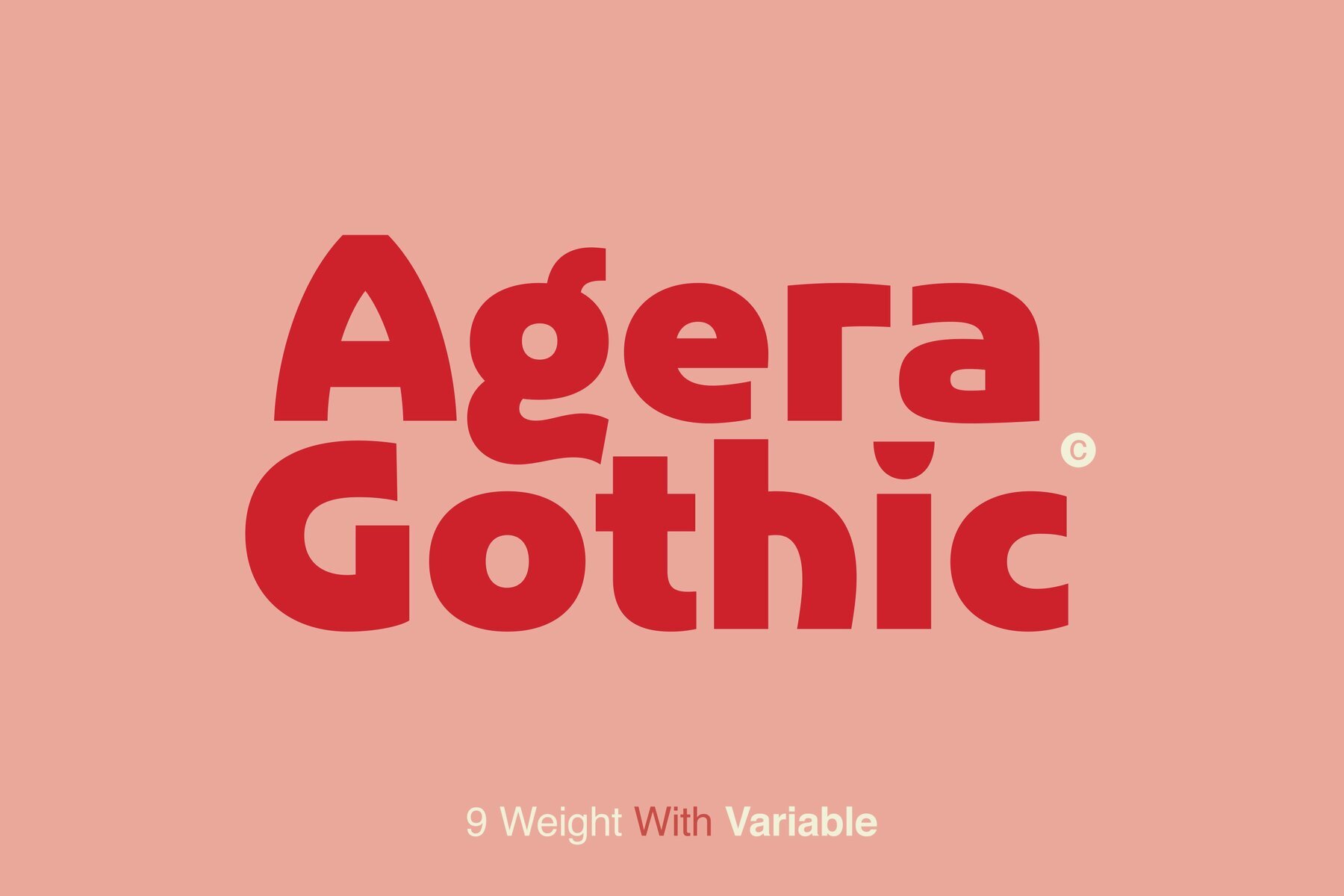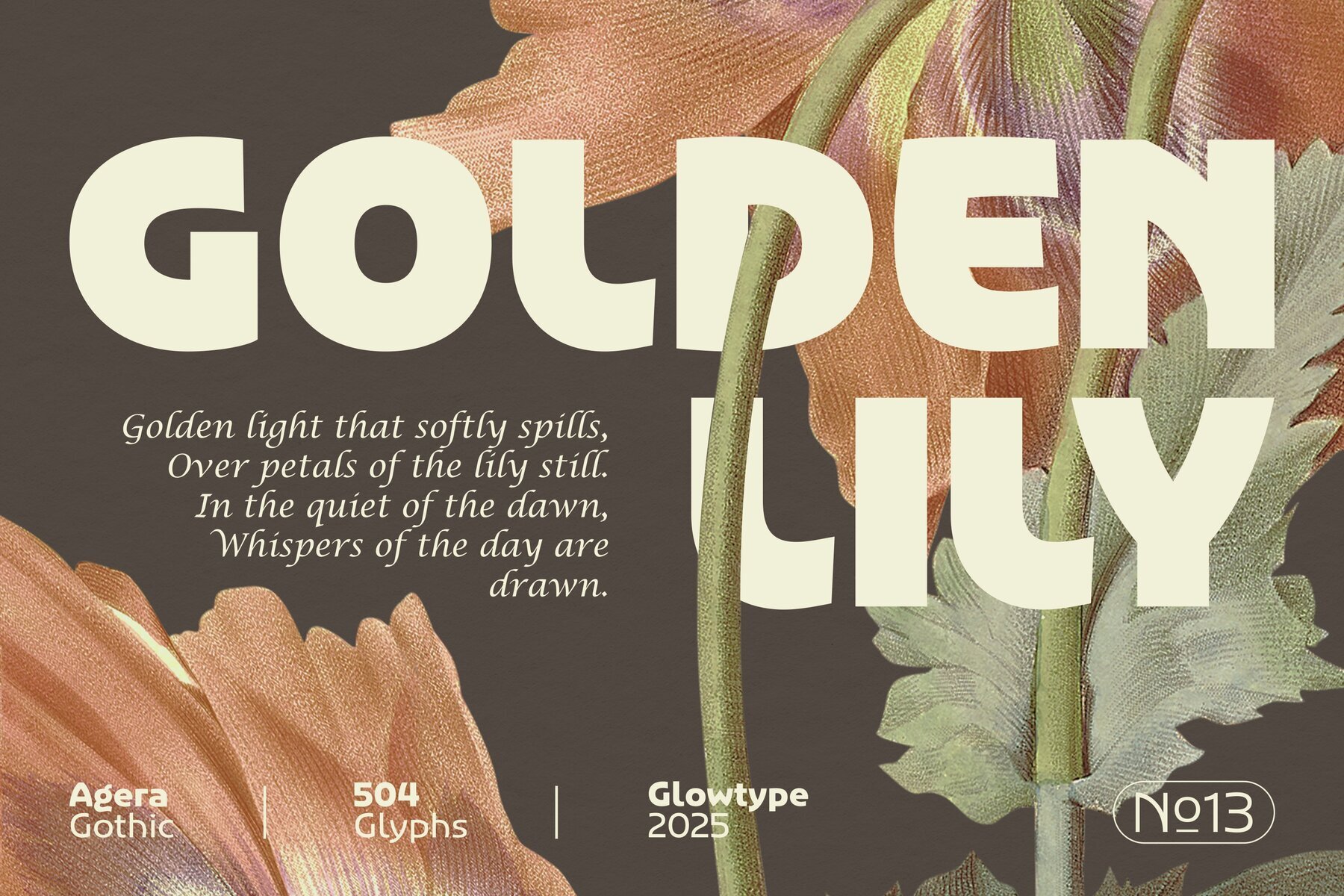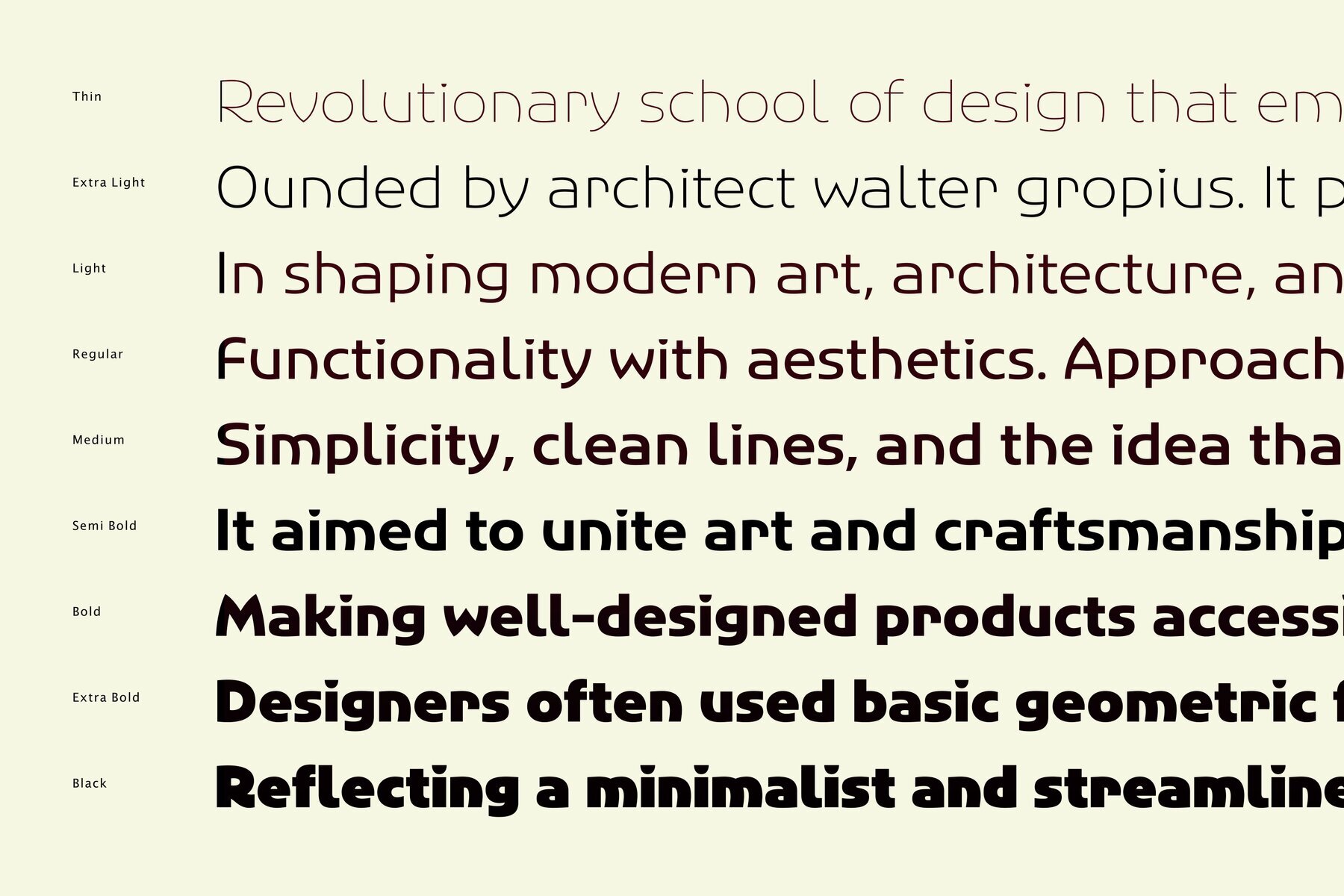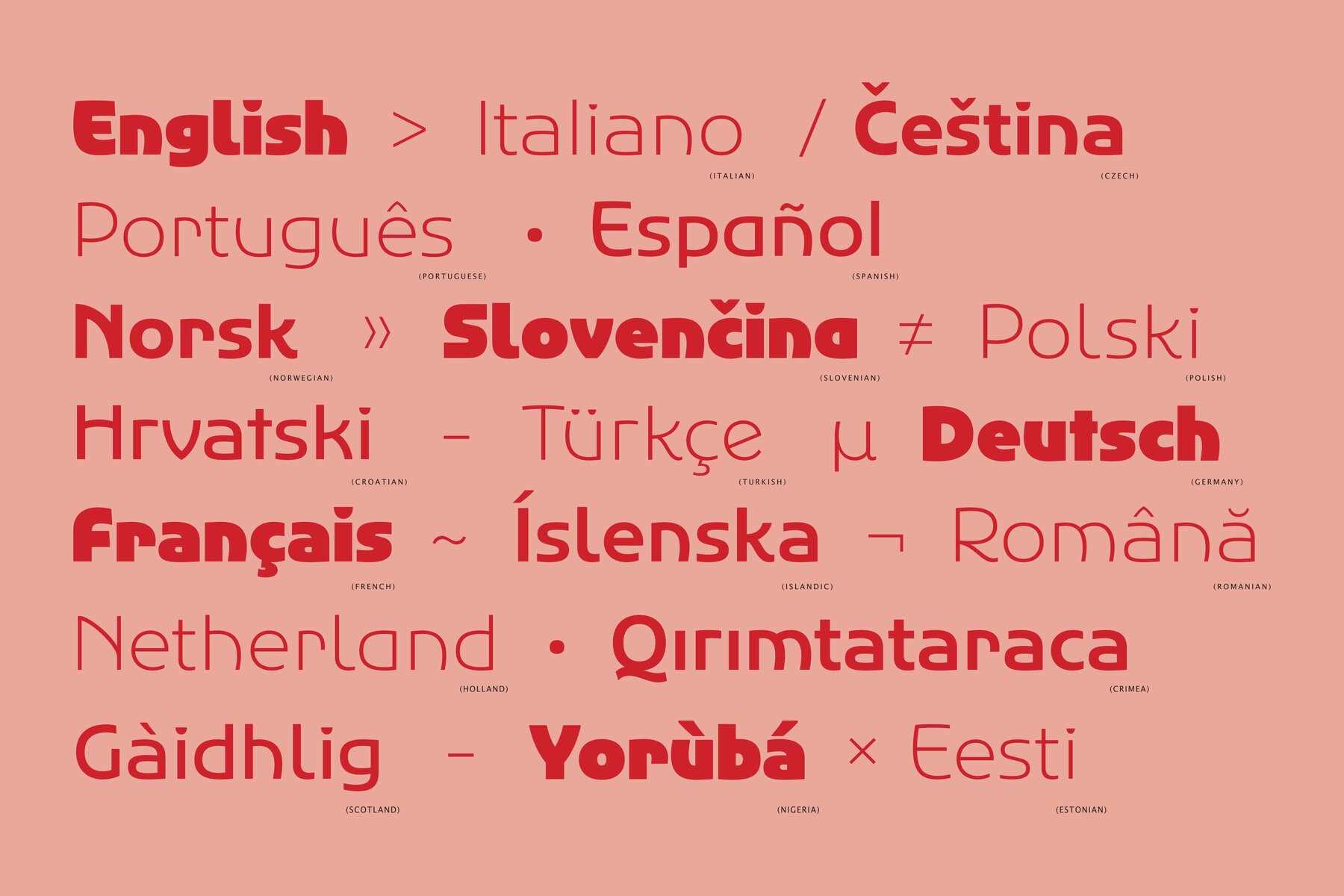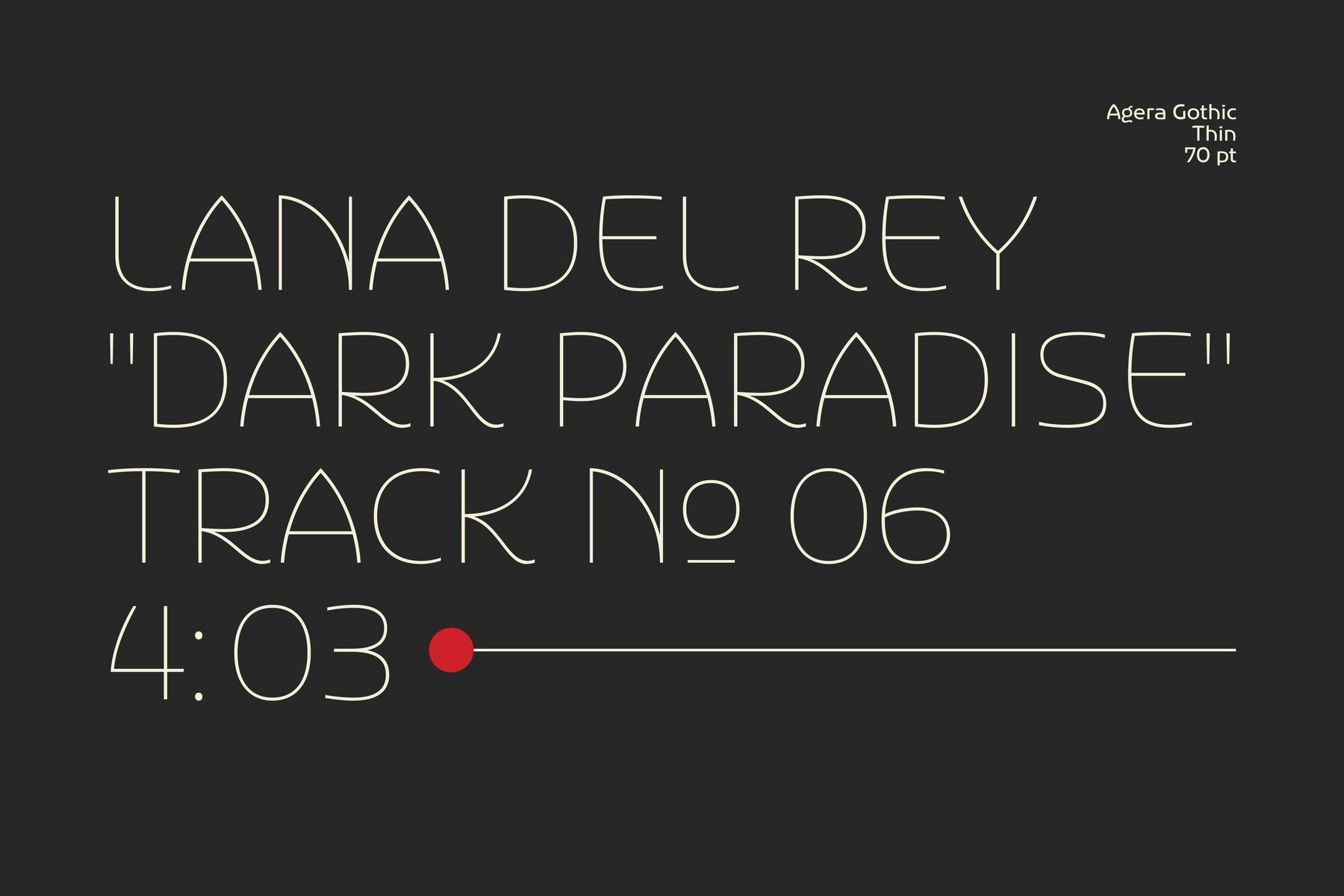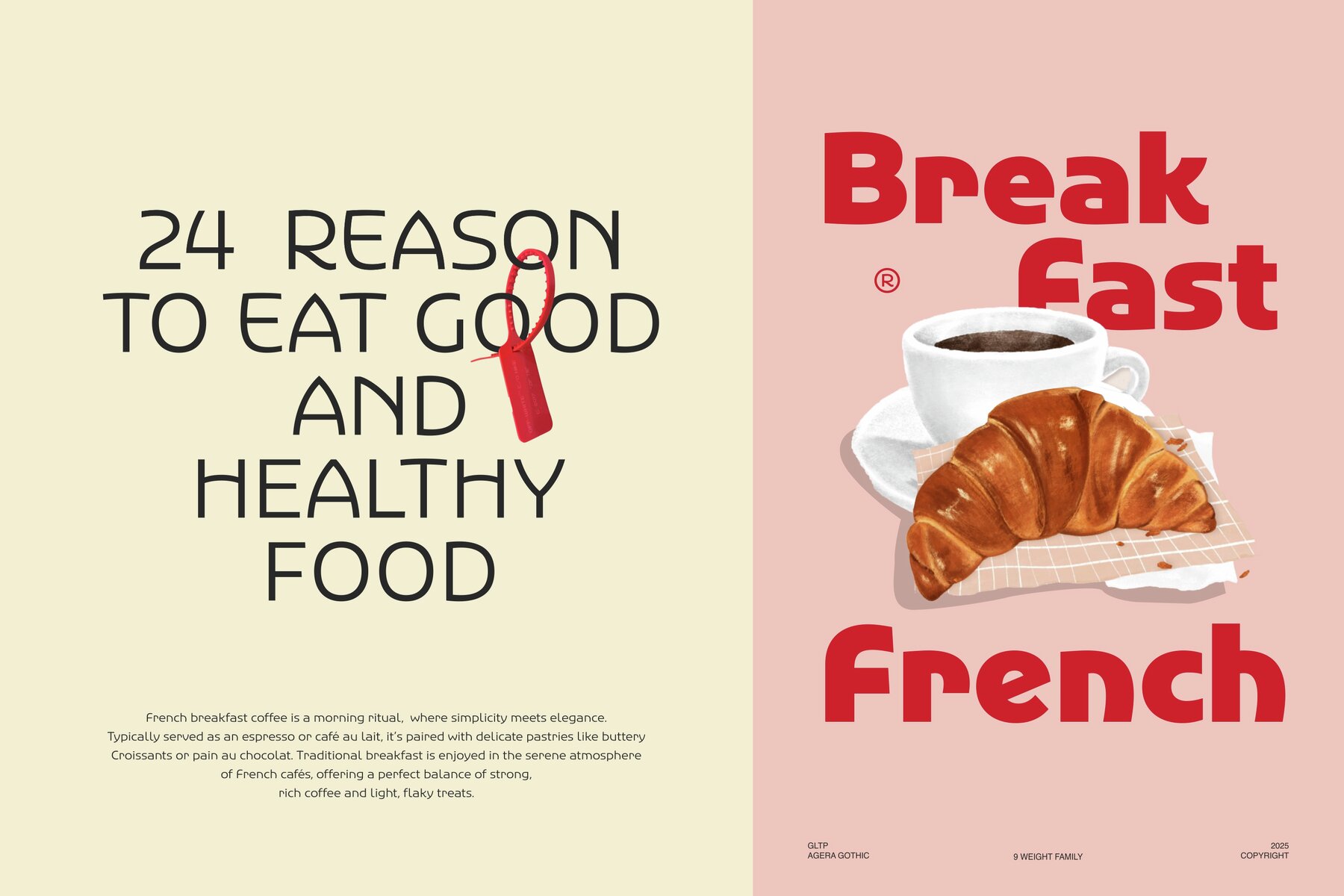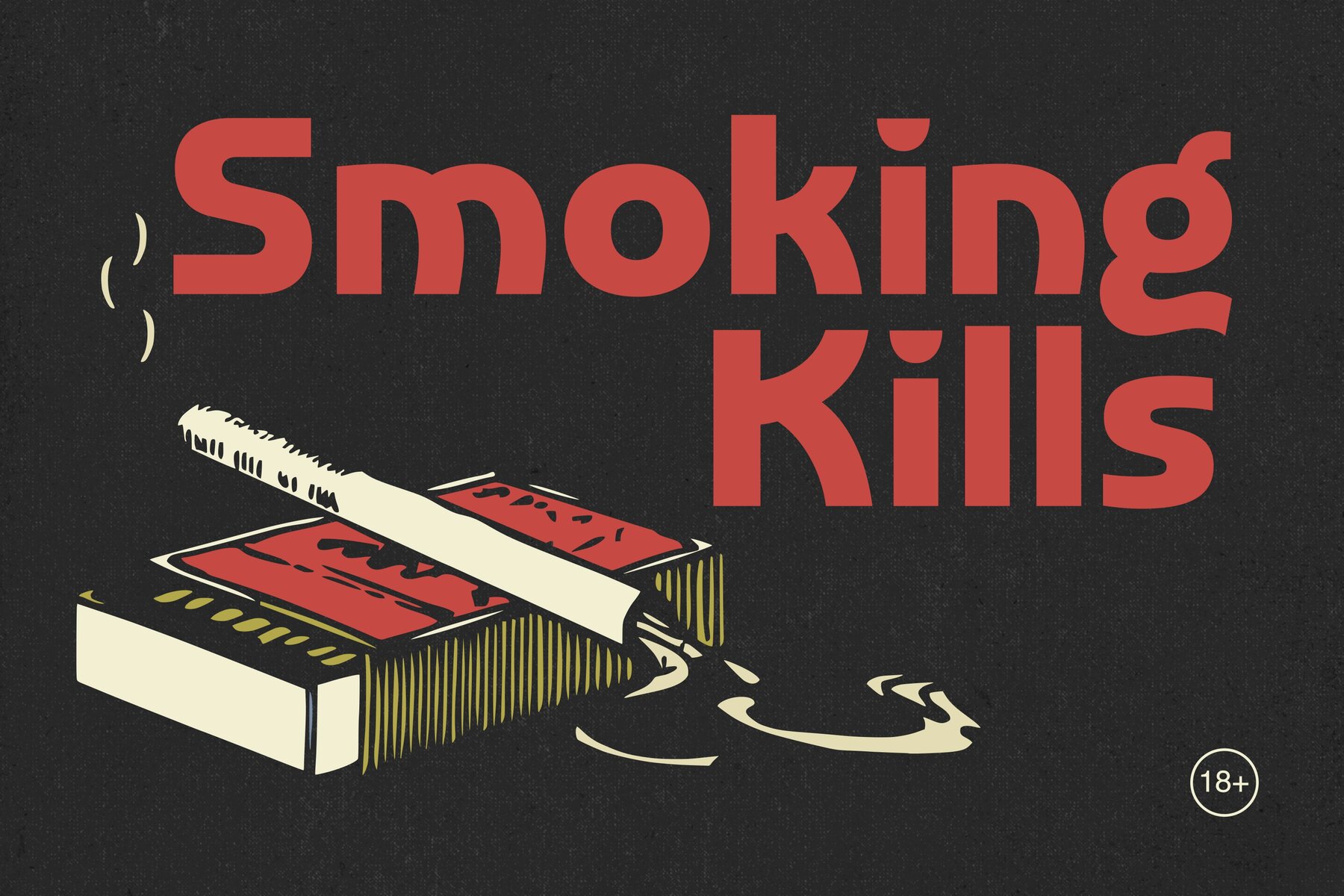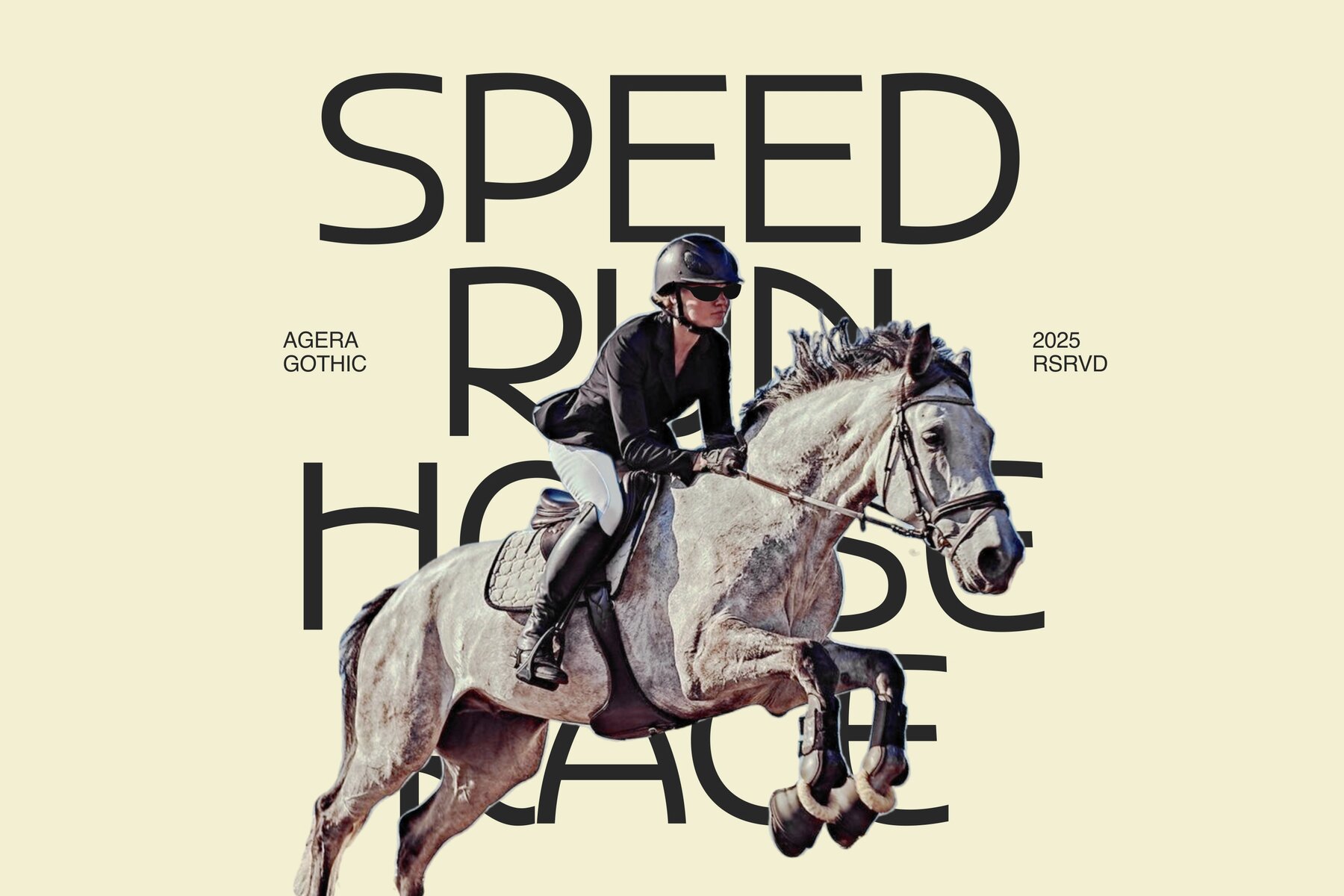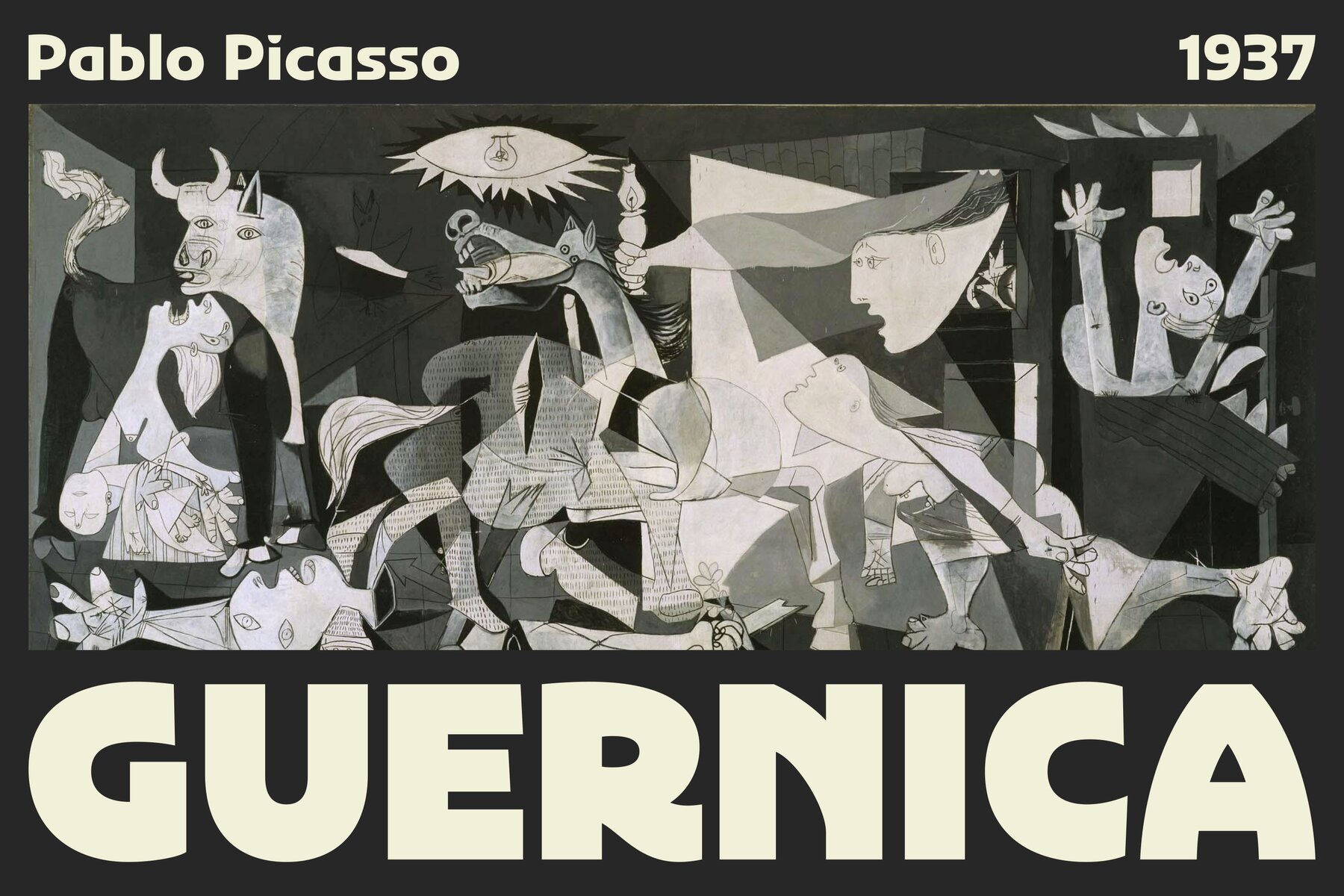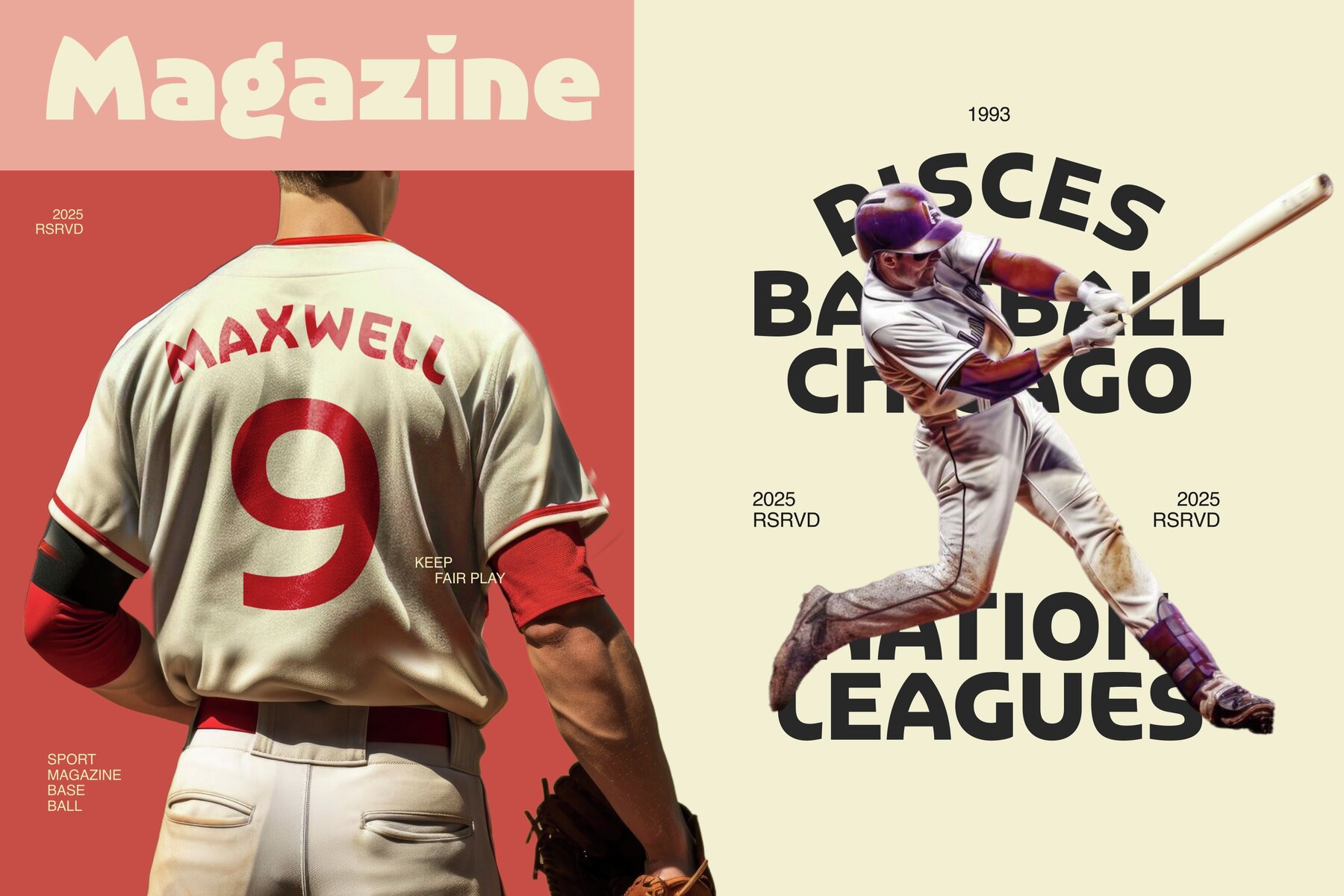
Agera Gothic Font
Agera Gothic embodies a sophisticated blend of classic and modern design elements, inspired by Robert Wiebking's Advertisers Gothic from 1917. This typeface skillfully merges traditional typography with influences from Art Nouveau, Avant-Garde, and Postmodern styles to create a unique and versatile aesthetic. The carefully designed letterforms strike a perfect balance between historical elegance and modern innovation, making it an ideal choice for designers seeking a timeless yet contemporary touch. Agera Gothic offers remarkable adaptability across an array of design applications, including advertising, displays, posters, magazines, and book covers. Its dynamic range underscores its readability and ensures dramatic visual appeal. The versatile weights facilitate dynamic contrasts, providing designers the creativity to enhance their work. This typeface is perfect for those aiming to make a lasting impression, whether in print or digital mediums, infusing projects with incomparable charm and timeless appeal.Agera Gothic: Classic Meets Contemporary
Versatile and Dynamic